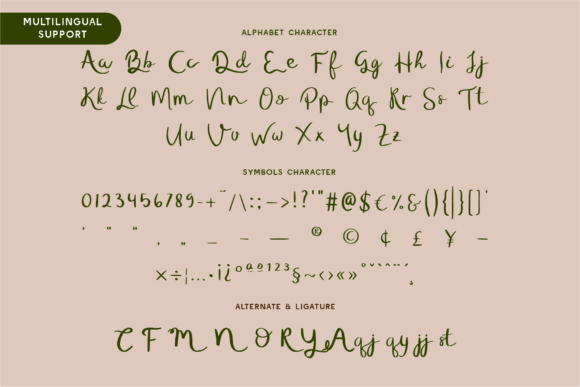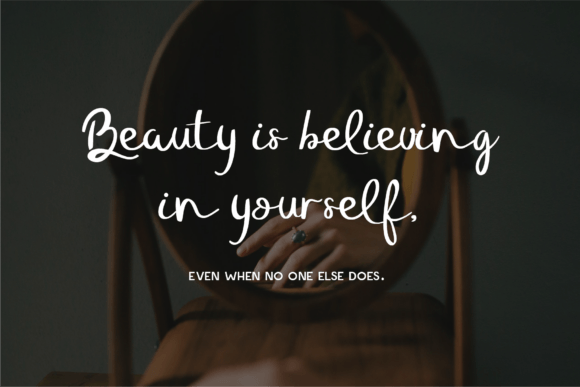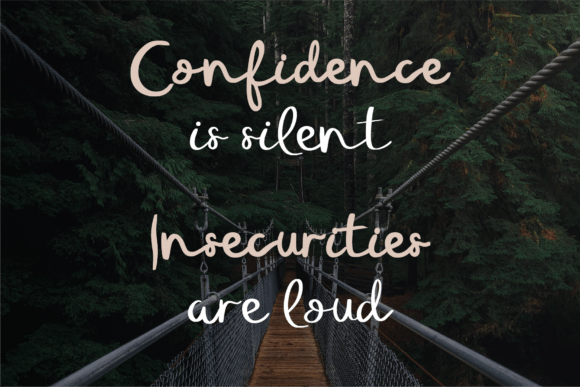
Introduction to Haneulli Font
Haneulli is a charming handwritten font that beautifully blends a casual and elegant vibe.
The smooth, flowing curves of each letter create a sense of natural rhythm, making the font feel approachable and friendly while maintaining an air of sophistication Its versatility shines through in the balance between playful loops and clean lines, ideal for projects that need a touch of personality without sacrificing elegance.